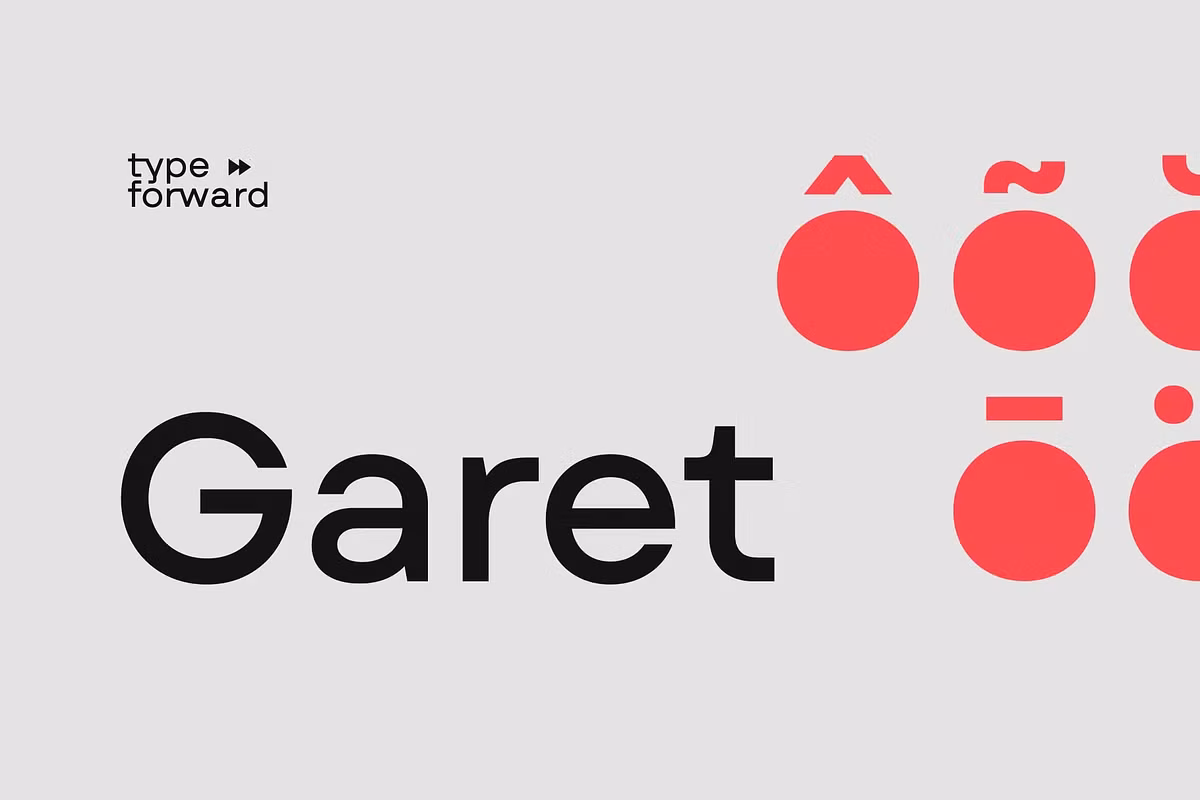
Garet Font Family Free Download is a versatile and modern sans-serif typeface that offers a wide range of weights and styles to meet the needs of various design projects. Whether you're working on branding, editorial design, website typography, or print materials, the Garet Font Family provides flexibility and professionalism with its clean lines and balanced structure.
This font family typically includes multiple weights, from light to bold, along with italic versions, making it suitable for a variety of applications—from body text to bold headlines. Its modern, neutral design makes it perfect for both corporate and creative projects.
The font family includes uppercase and lowercase letters, numerals, punctuation, and multilingual support, making it highly adaptable for international use. It's compatible with most design software and works beautifully in both print and digital formats.